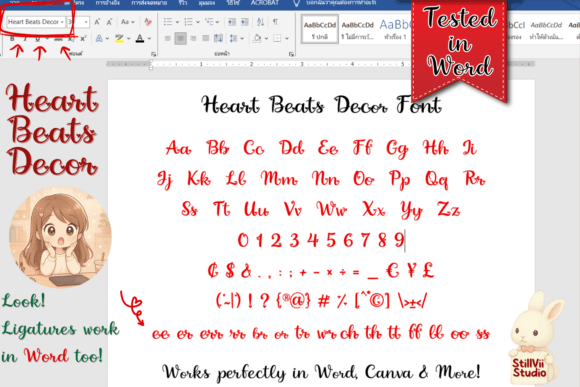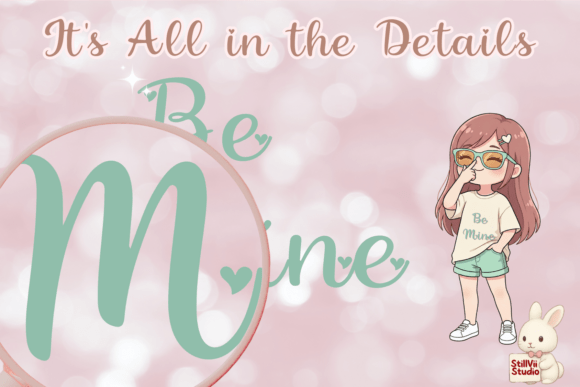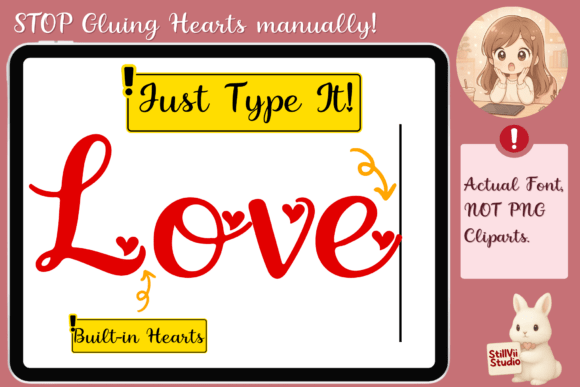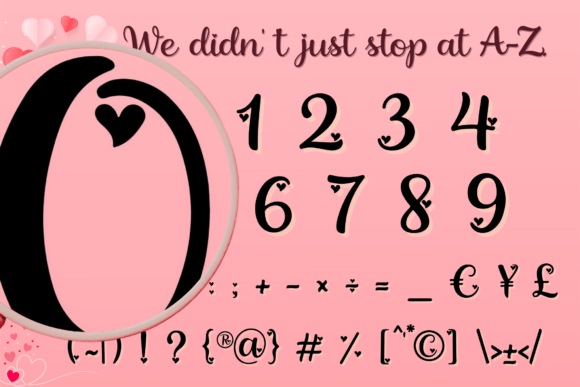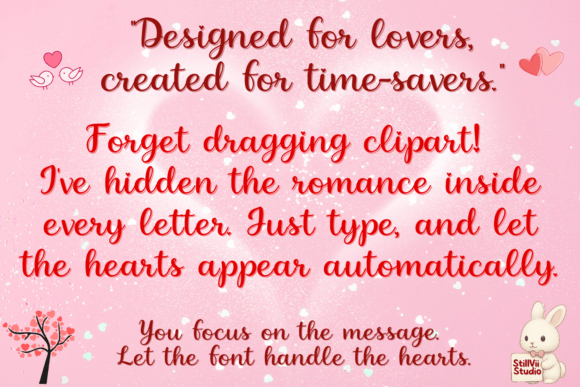
💖 Stop Drawing Hearts Manually! Just Type & Let the Love Flow with Heart Beat Duo Font
Are you tired of manually drawing hearts for your designs? Do you wish there was an easier way to add a touch of love and whimsy to your creations? Look no further! Introducing Heart Beats Duo, the ultimate Cute Valentine Handwriting Font that adds lovely heart details automatically as you type. Designed specifically for crafters and time-savers, this Font Duo (Solid + Decor) is perfect for Wedding invitations, Vinyl decals, Laser engraving, and DIY cards.
What is Heart Beat Duo Font?
Heart Beat Duo Font is a carefully crafted font duo that consists of two fonts: a solid font and a decorative font. The solid font provides a clean and elegant look, while the decorative font adds a playful and whimsical touch with automatic heart details. This font duo is designed to work seamlessly with popular design software such as Cricut, Canva, and Microsoft Word.
Key Features of Heart Beat Duo Font
- Automatic Heart Details: With Heart Beat Duo Font, you can say goodbye to manually drawing hearts. The font automatically adds lovely heart details as you type, saving you time and effort.
- Font Duo: The package includes two fonts: a solid font and a decorative font. Use the solid font for a clean look or the decorative font for a more playful touch.
- Compatible with Popular Design Software: Heart Beat Duo Font works seamlessly with Cricut, Canva, Microsoft Word, and other popular design software.
- Perfect for Various Design Projects: Use Heart Beat Duo Font for Wedding invitations, Vinyl decals, Laser engraving, DIY cards, and more.
Heart Beat Duo Font is a game-changer for designers and crafters who want to add a touch of love and whimsy to their creations. With this font duo, you can:
- Save Time: No more manually drawing hearts or wasting time on tedious design elements.
- Increase Productivity: With Heart Beat Duo Font, you can create stunning designs quickly and efficiently.
- Enhance Your Designs: The automatic heart details add a unique and playful touch to your designs, making them stand out from the crowd.
Heart Beat Duo Font is the ultimate Cute Valentine Handwriting Font for designers and crafters. With its automatic heart details, font duo, and compatibility with popular design software, this font duo is perfect for various design projects. Say goodbye to manual heart drawing and hello to a world of creativity and productivity. Get your hands on Heart Beat Duo Font today and start creating stunning designs with ease! 🎁